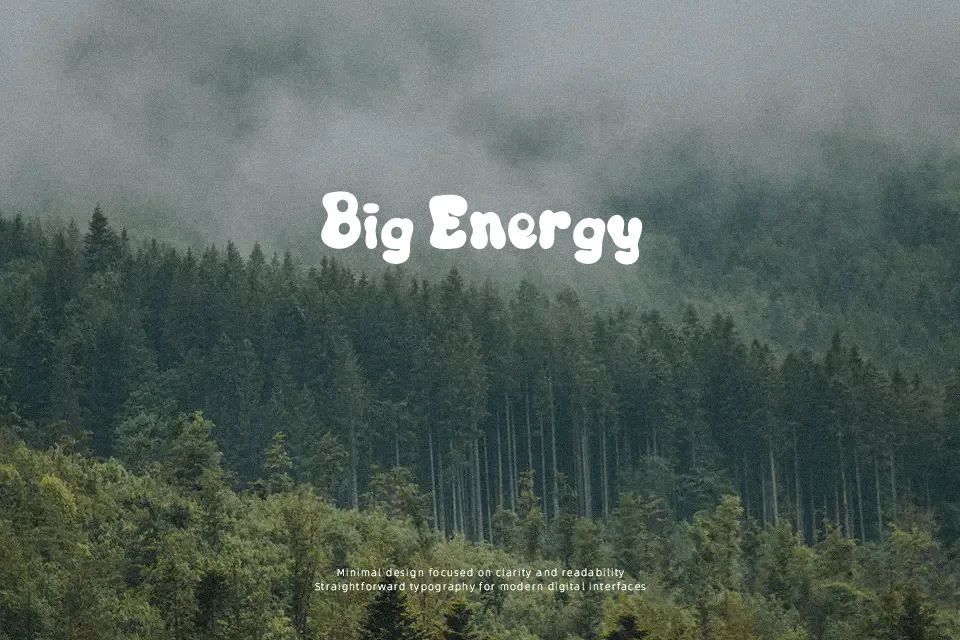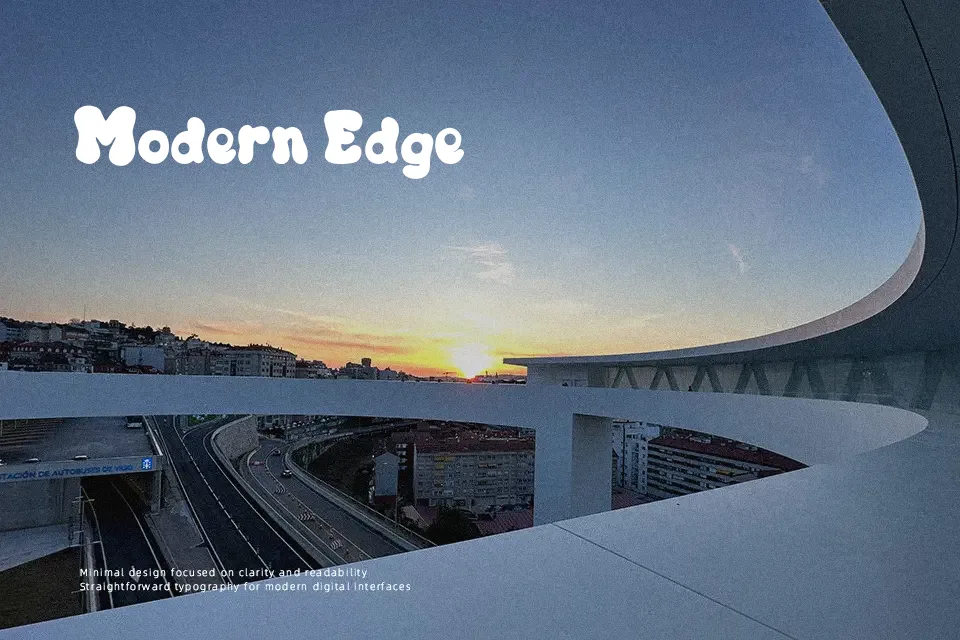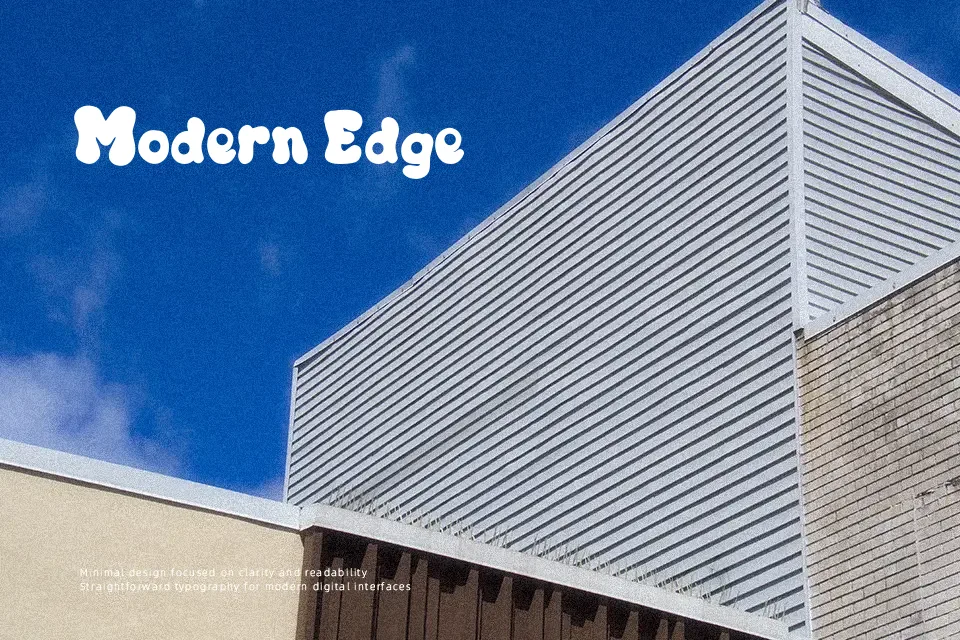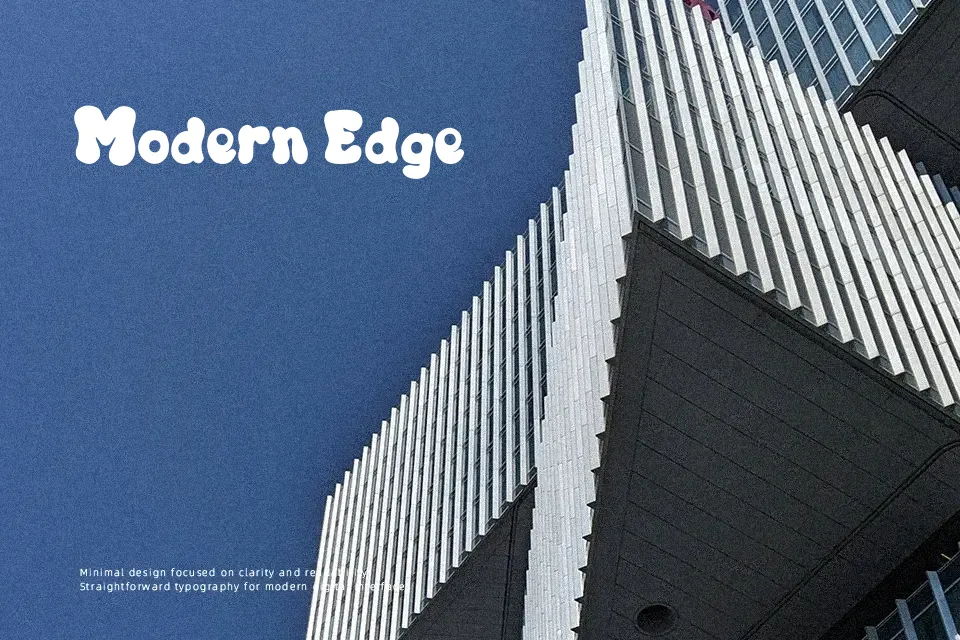
Pimp My Ride Font
Pimp My Ride Font works best in large display settings, where its rounded, balloon-like letterforms can be read as bold shapes rather than dense text. The strokes appear full and smoothly curved, with soft terminals and broad proportions that create an informal visual rhythm. Spacing gives individual characters room to retain their shape in short words and titles. It is a practical option for party artwork, youth-oriented graphics, and expressive headline treatments. Decorative forms and substantial visual weight make the typeface less comfortable for small copy, compact labels, or extended reading.
Best For: party poster titles,birthday invitations,playful social media graphics,children’s event signage
Perfect for headline, invitation, and kids, with a bold and decorative style.